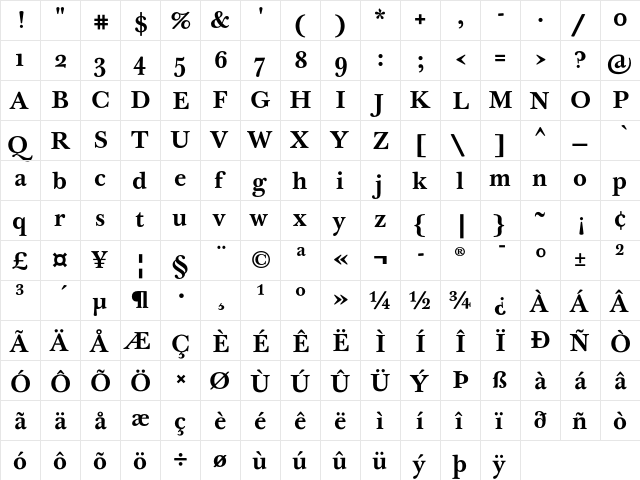
Baskerville Ten Pro Bold
| Foundry | Frantisek Storm |
| Designer | Frantisek Storm |
Design Context for Baskerville Ten Pro Typeface
Baskerville Ten Pro offers clean, dependable letterforms without strong stylistic allegiance, making it a practical choice for designers who need flexibility. Its bold stroke weight gives it real presence on the page.